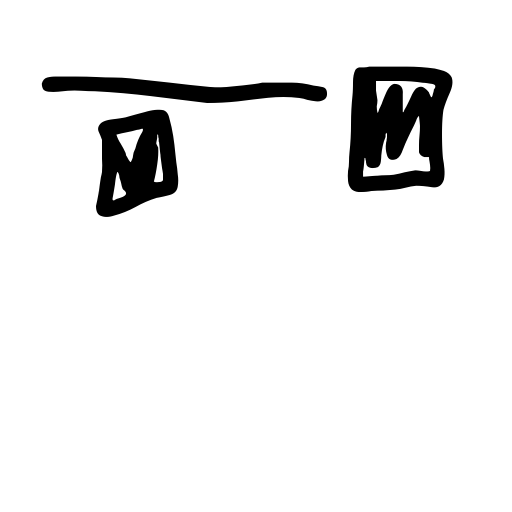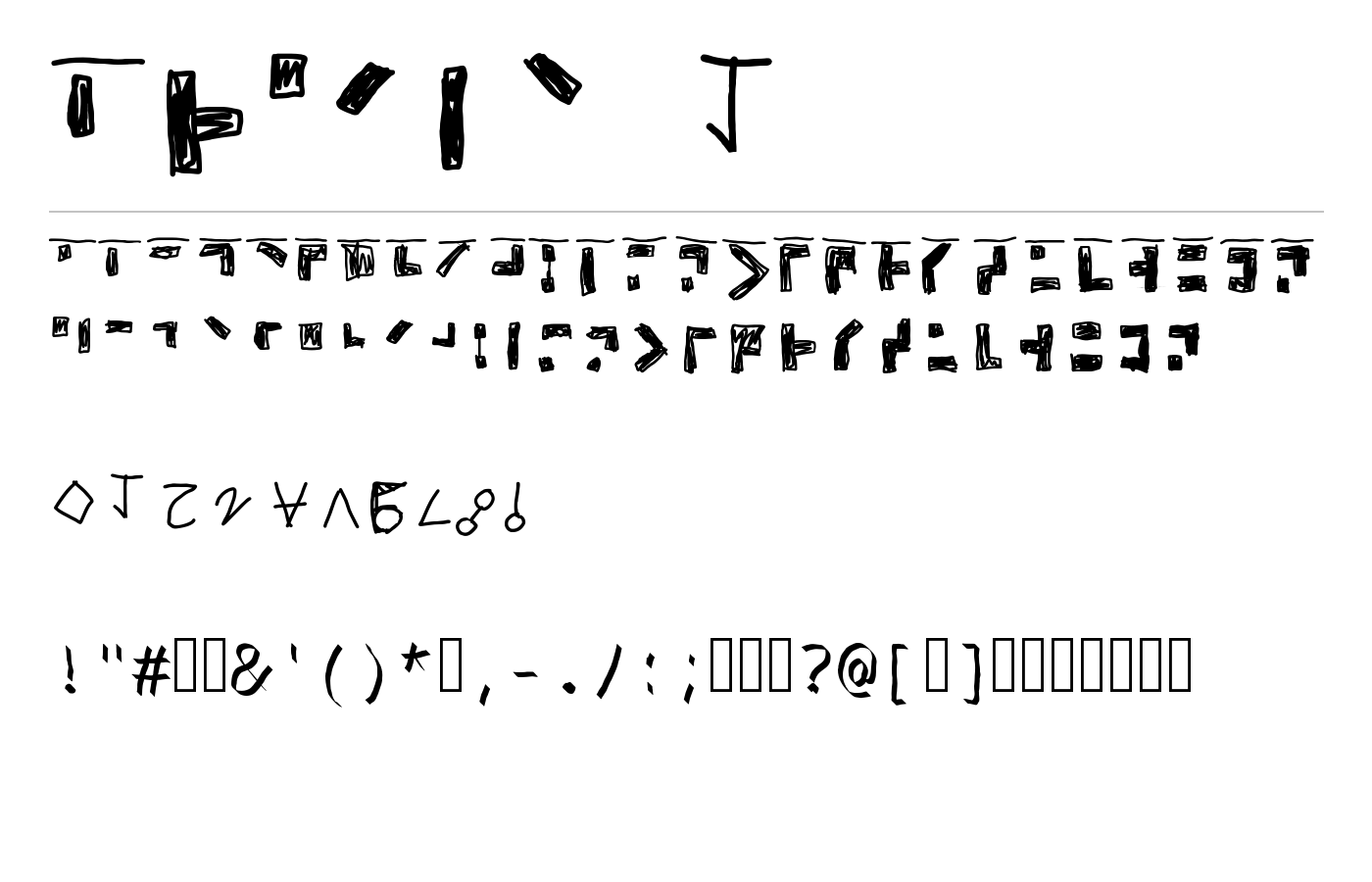
Braile 1 Font is a distinctive handwritten typeface with a quirky, abstract style that mimics rough sketching or doodling. Its irregular shapes and uneven strokes give it a playful and artistic personality, making it suitable for creative projects, alternative branding, or casual designs where a unique, unconventional look is desired. This font works well for expressive headlines or graphic elements rather than traditional body text due to its unusual letterforms and visual texture.
Braile 1 Font
About Braile 1 Font
| Font family | Braile 1 Font |
| Designer | Raed |